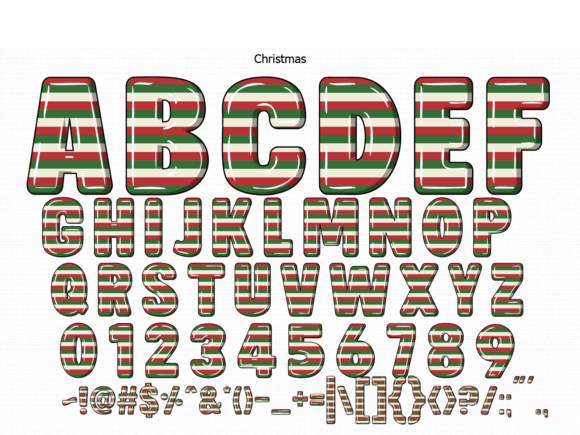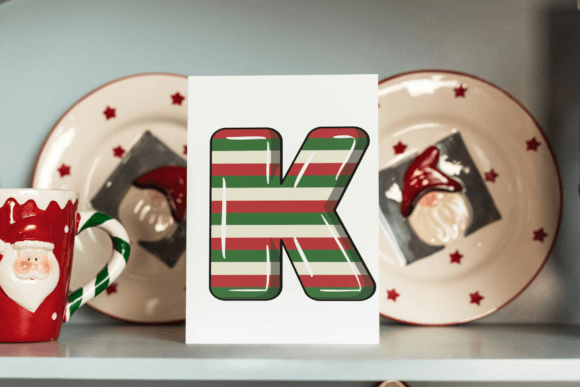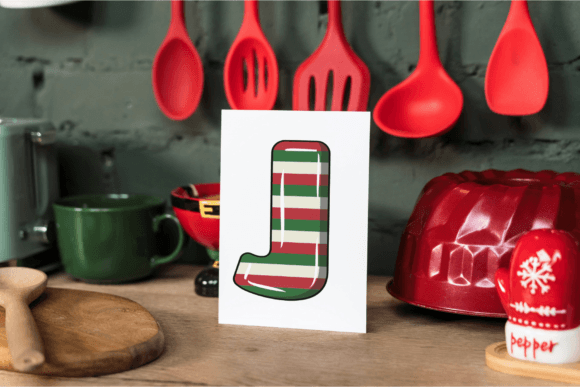
Christmas Font
Christmas is a fun, bubbly font with bright colors that make it perfect for the holidays. The letters are playful and give a retro, cheerful vibe, adding a groovy touch to any Christmas design. Ideal for festive cards, posters, and decorations!The black version of this font is compatible with Cricut Design Space and other cutting machines.Note! The color version of this font is only compatible with certain design programs incl. PhotoShop, Illustrator, Silhouette, and Inkscape. The OTF and/or TTF files of the color version are not compatible with Cricut. For more information on how to use this type of font please check our Ultimate Font Guide .